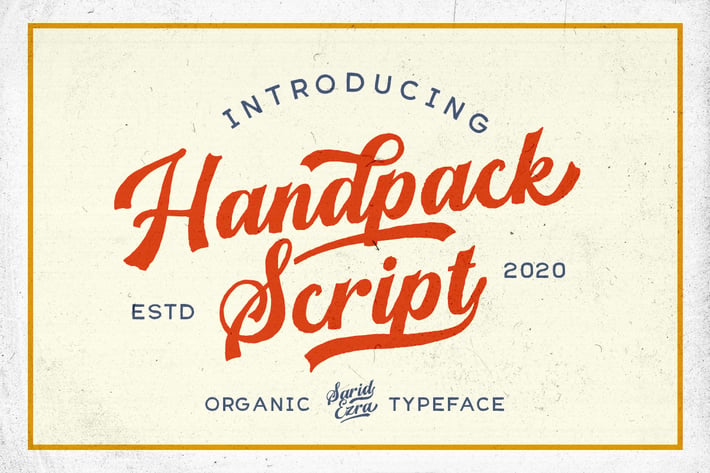
Handpack Script - Handmade Font
Handpack Script is an organic and handmade font. You can use this font for every project. Suitable for branding logo and hand lettering. This script also support multilingual, number and symbol. Also this font already PUA Encoded.